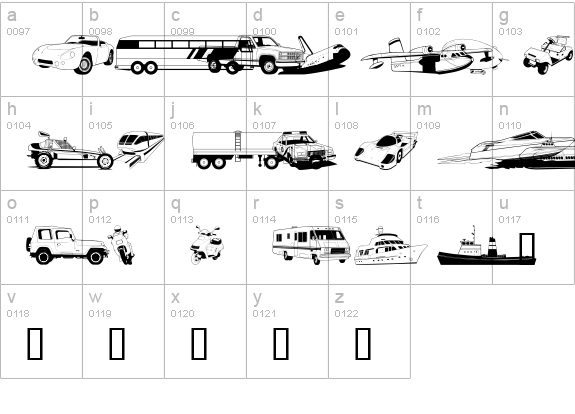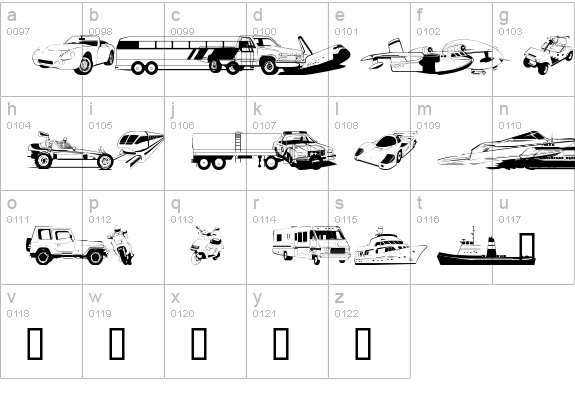
GE Zoom Font Details
Introducing GE Zoom Font – a versatile and modern typeface that is perfect for a wide range of design projects. This font features clean lines, sharp edges, and a sleek appearance that will make your designs stand out. With its eye-catching style, GE Zoom Font is sure to grab attention and leave a lasting impression. What sets GE Zoom Font apart is that it is available for free download at FontsMarket.com. That's right – you can access this stunning font at no cost, making it an incredibly valuable resource for designers, creatives, and anyone looking to add a touch of sophistication to their projects. Whether you're working on a branding campaign, website design, poster, or any other creative endeavor, GE Zoom Font is the perfect choice. Its modern aesthetic and versatility make it suitable for a wide range of applications, while its free availability ensures that you can use it without any limitations. Download GE Zoom Font today from FontsMarket.com and take your designs to the next level with this stylish and contemporary typeface.